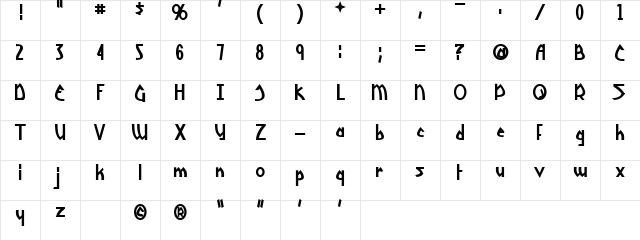
Yoshitoshi Bold
Design Context for Yoshitoshi Typeface
Yoshitoshi is a composed and adaptable typeface that performs quietly and consistently across a wide range of design contexts. The heavy weight commands attention and anchors typographic hierarchies.